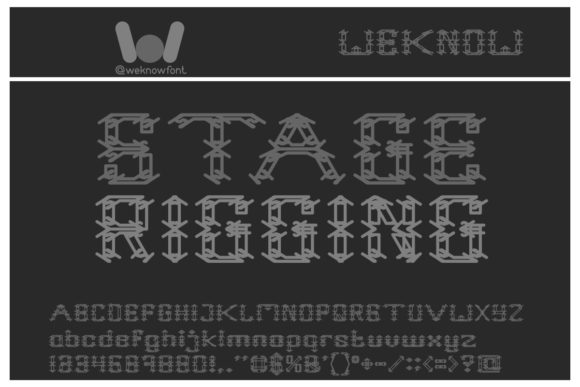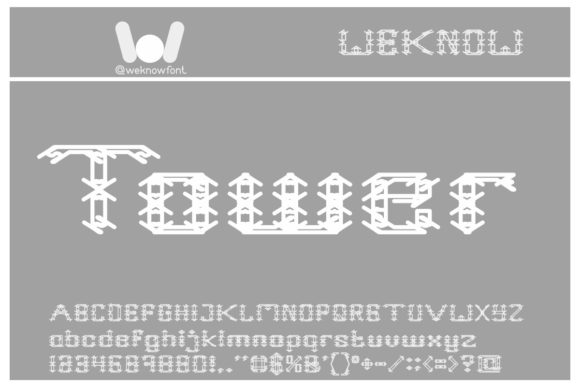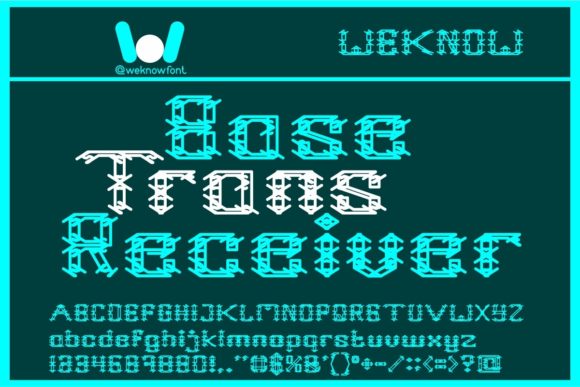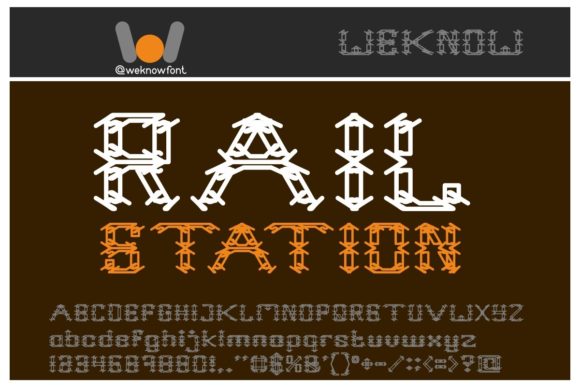
Introducing Frame Work Font: Elevate Your Designs with Versatility and Style
In the world of design, typography plays a crucial role in conveying messages, expressing creativity, and establishing brand identities. For designers and crafters seeking a font that can adapt to various themes and projects, Frame Work Font emerges as a game-changer. This fancy font is not just a typeface; it’s a versatile tool designed to enhance logos, logotypes, headlines, and more across multiple industries and mediums.
Unleash Creativity with Frame Work Font
Frame Work Font is meticulously crafted to serve a wide array of applications, making it an indispensable asset for designers. Whether you’re working on:
- Corporate Identity: Create a lasting impression with unique logotypes and headlines that speak professionalism and innovation.
- Brand Identity: Stand out in the market with distinctive typography that echoes your brand’s voice and values.
- Apparel Industry: Design captivating t-shirt prints, labels, and brand names that appeal to a broad audience.
- Poster, Movie, Game, and Music: Add drama and character to your titles and taglines, making them unforgettable.
- Magazine, Book, and Comic: Enhance storytelling with stylish and readable fonts that engage readers.
- Cartoon and Social Media: Bring your digital content to life with playful and trendy typography.
- Websites: Elevate your online presence with a font that works seamlessly across various digital platforms.
Why Choose Frame Work Font?
Frame Work Font is more than just a typeface; it’s a design companion that offers:
- Versatility: Its various themes and styles ensure that it fits well into almost any design project.
- Aesthetic Appeal: With its fancy and stylish look, it adds a touch of elegance and sophistication to your designs.
- Legibility: Carefully designed to ensure readability across different sizes and applications.
- Creativity Boost: Its unique style inspires creativity, helping designers to explore new ideas and perspectives.
Tips for Using Frame Work Font Effectively
To maximize the potential of Frame Work Font, consider the following tips:
- Mix and Match: Experiment with different themes and styles within the font family to create visual hierarchy and contrast.
- Consider Context: Tailor your typography choices based on the project’s context and target audience.
- Play with Sizes: Utilize varying font sizes to emphasize certain elements and guide the viewer’s eye through the design.
- Pair Wisely: When combining Frame Work Font with other typefaces, ensure they complement each other in terms of style and readability.
Frame Work Font stands out as a versatile and stylish typeface suitable for a myriad of design projects. Its ability to adapt to different themes and applications makes it a valuable asset for designers looking to elevate their work. Whether you’re a professional designer or a crafting enthusiast, Frame Work Font offers the tools you need to bring your creative visions to life. Explore the possibilities with Frame Work Font and discover a world of typographic excellence.